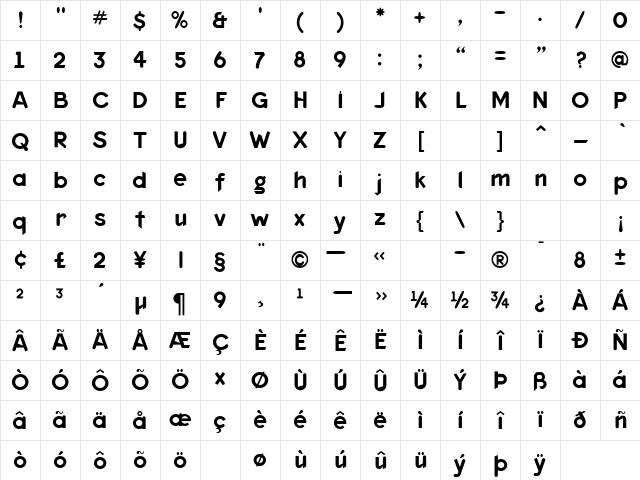
Keedy Medium
Keedy Family
Keedy Medium
Design Context for Keedy
Keedy is a composed and adaptable typeface that performs quietly and consistently across a wide range of design contexts.